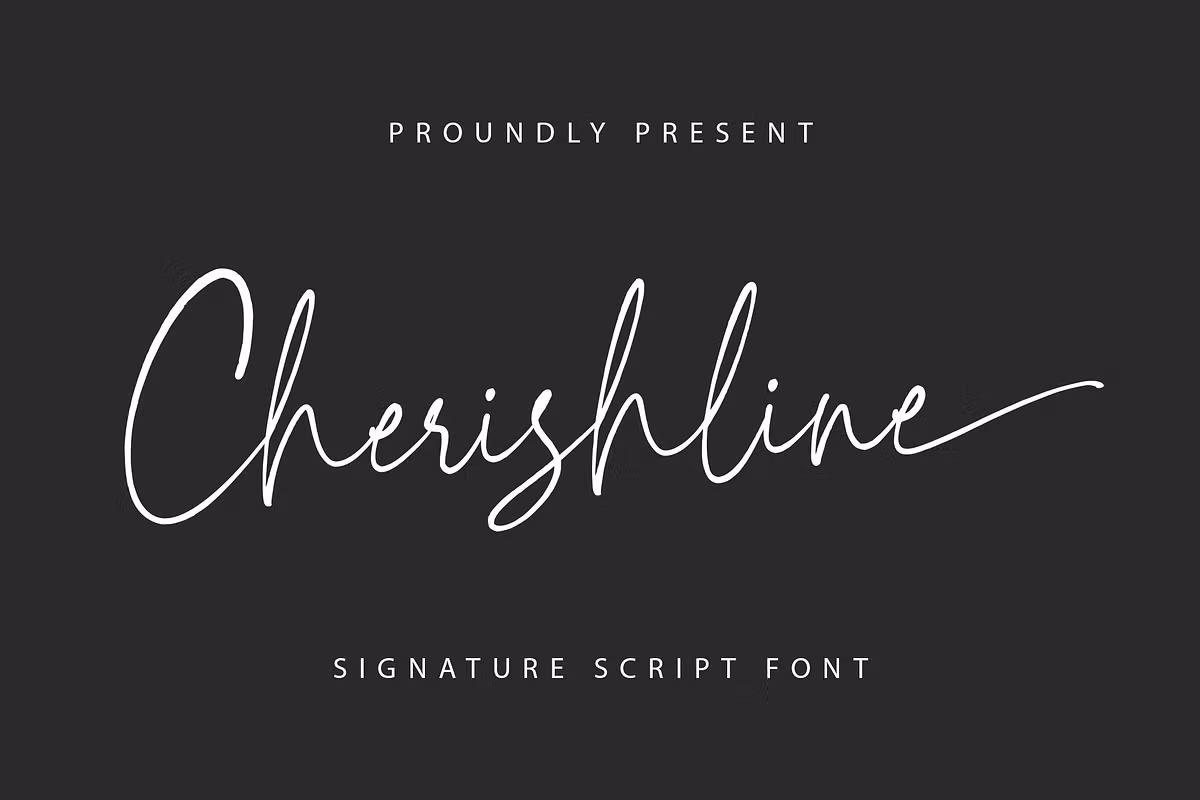
Cherishline Script Font Free Download
Cherishline Script Font Free Download is a romantic and elegant handwritten script that brings a graceful flow to any design. With its smooth curves, delicate swashes, and natural stroke contrast, this font is perfect for wedding invitations, branding, greeting cards, logos, and any project that calls for a soft, personal touch.
Cherishline captures the beauty of modern calligraphy, combining charm and readability for a luxurious handwritten feel. It pairs beautifully with serif or sans-serif fonts, giving you creative flexibility for a wide range of layouts.